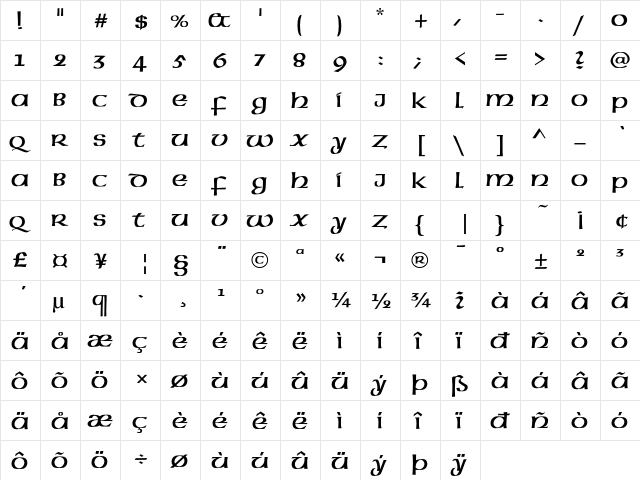
AmericanUncialEF Regular
Design Context for AmericanUncialEF Typeface
AmericanUncialEF is a composed and adaptable typeface that performs quietly and consistently across a wide range of design contexts.